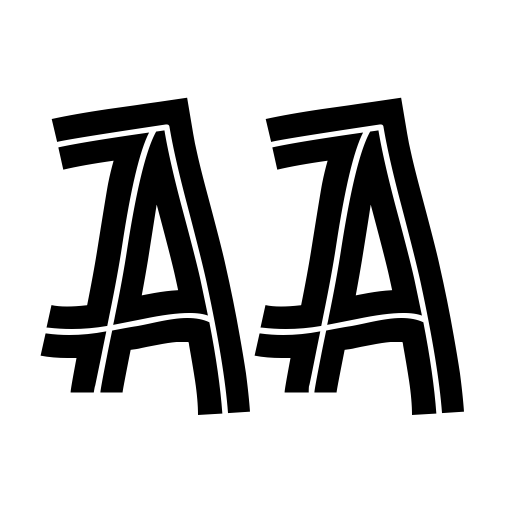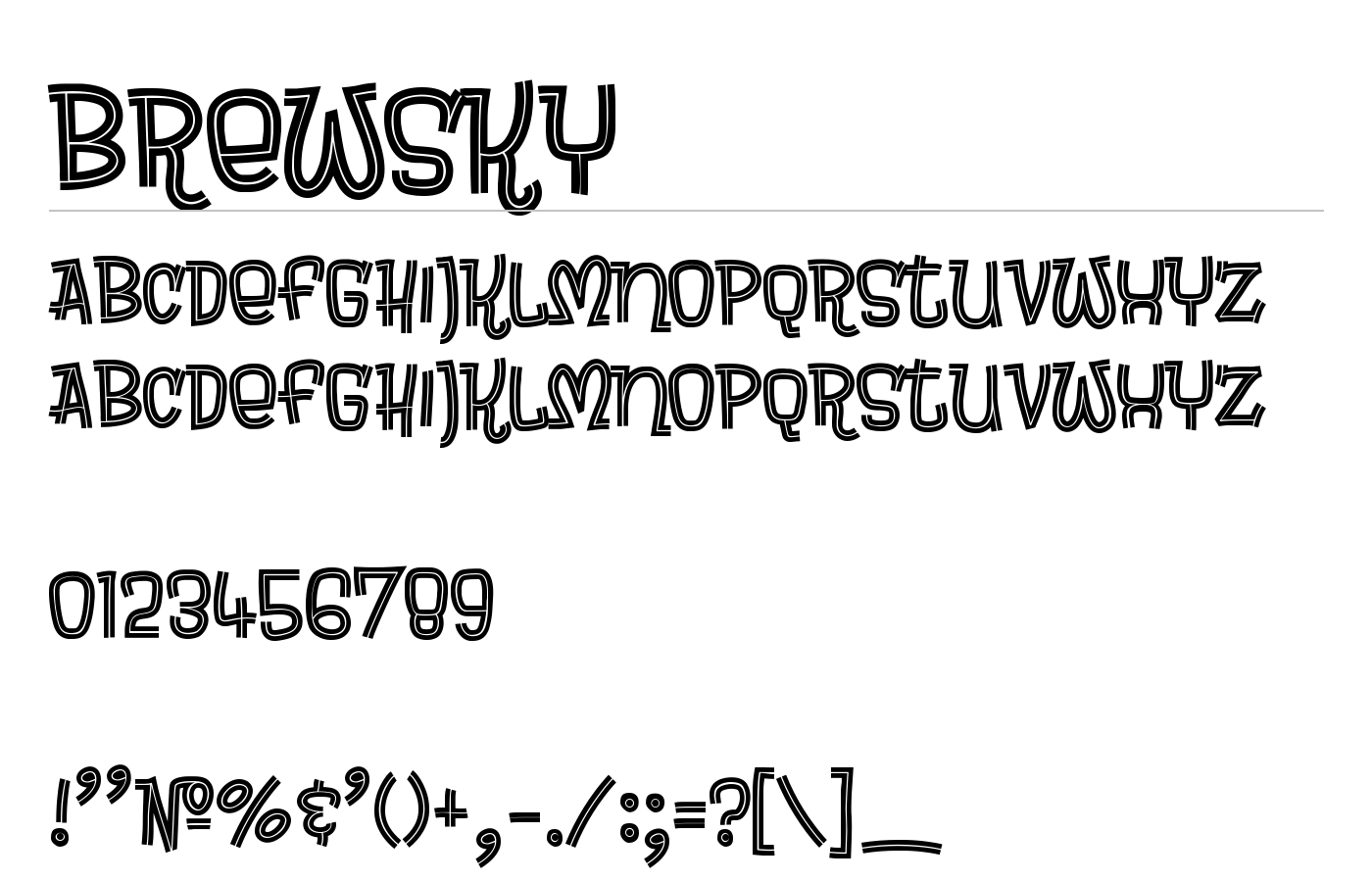
Brewsky is a playful and stylish sans serif font with a hand-drawn, cartoon-like character. Its narrow, irregular letterforms and double-line strokes give it a lively, casual feel that works well for fun, informal branding, posters, and creative headlines. This font is perfect for projects seeking a quirky, energetic vibe that stands out with personality and charm.
Brewsky Font
About Brewsky Font
| Font family | Brewsky Font |
| Designer | Tup Wanders |